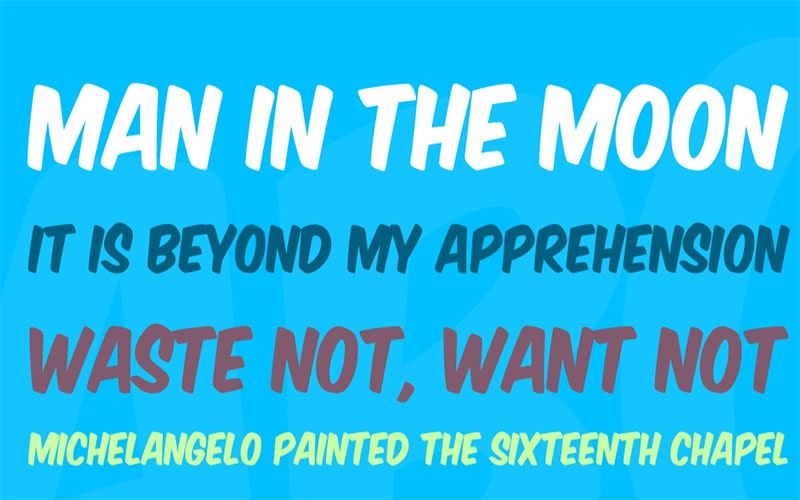
Komika Axis Font stands out as a bold and dynamic typeface, embodying a playful yet assertive design. It was designed by Apostrophic Labs, a collective of designers known for their innovative and eclectic typefaces.
Apostrophic Labs has a reputation for creating fonts that break conventional norms, often incorporating unique and eye-catching elements. Komika Axis Font is a testament to their creativity, combining boldness with a comic-inspired aesthetic.
This Font family includes various styles such as Komika Axis Regular, Komika Axis Bold, and Komika Axis Italic that cater to different design needs.
Each typeface maintains the core characteristics of the font while providing options for different levels of emphasis and stylistic variation.
Komika Axis Font
| Font Name: | Komika Axis Font |
| Style: | Fancy, Comic, Typeface |
| Font Designer: | Apostrophic Labs |
Komika Axis Font offers a unique blend of boldness and playfulness, making it an excellent choice for projects that need to stand out and make an impact.
Offers a hand-drawn, playful feel akin to Komika Axis such as the Benja Comic Font designed by DonMarciano and the Manga Temple Font made by Blambot.
Whether you’re designing a comic book, crafting an eye-catching poster, or creating an engaging website, this font provides the personality and versatility needed to elevate your work.